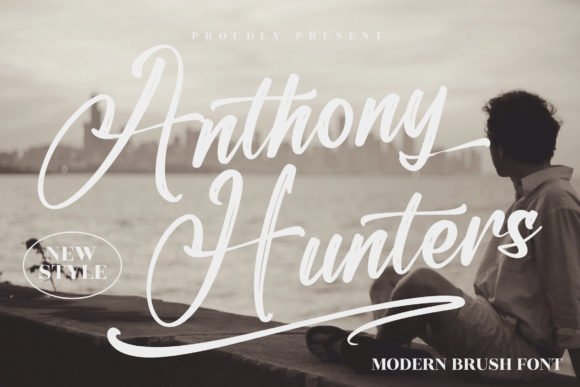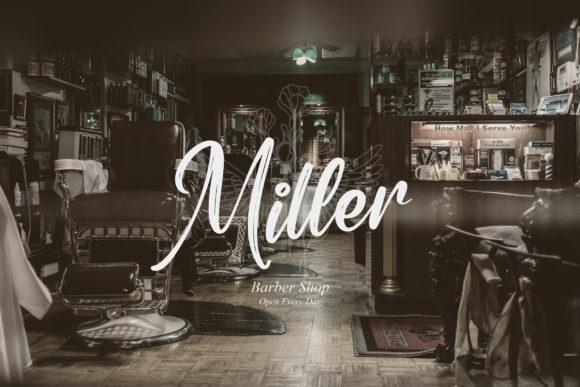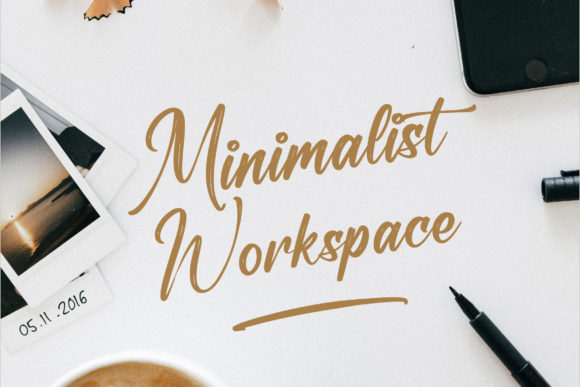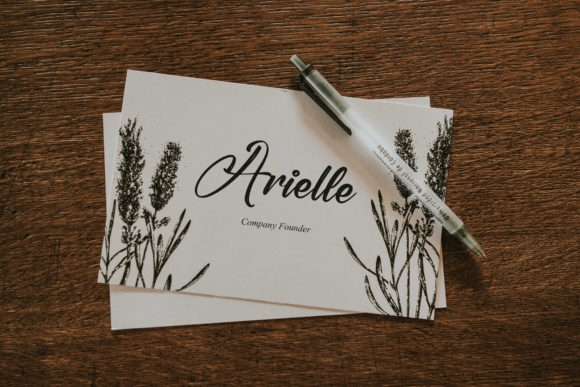
Anthony Hunters Font: Modern Calligraphy for Logo Design
About the Anthony Hunters Font
Explore the possibilities with Anthony Hunters Font, a font that offers both beauty and functionality. Anthony Hunters is an exquisite handwritten font, masterfully designed to become a true favorite. It maintains its classy calligraphic influences while feeling contemporary and fresh. Fall in love with it and bring your projects to the highest levels!
Anthony Hunters Font’s elegant yet contemporary feel makes it ideal for projects requiring a touch of sophistication. It excels in headlines, logos, short-form text on invitations or packaging, and even stylish social media graphics. Avoid using it for body text or large blocks of content; its calligraphic nature can hinder readability in extended passages.
Its refined personality pairs well with clean sans-serif fonts like Open Sans or Lato for a balanced contrast, or a classic serif like Garamond or Playfair Display for a more traditional feel. For a playful twist, consider pairing it with a geometric sans-serif like Montserrat or a slightly more informal script font, but choose one with a similar level of refinement to avoid clashing aesthetics.
The font projects a sophisticated and approachable personality, making it suitable for brands focused on luxury goods, beauty, fashion, or high-end services. Its versatility allows it to express both classic and modern sentiments, depending on the chosen pairing.
Anthony Hunters Font Usage Examples
Anthony Hunters Font Example